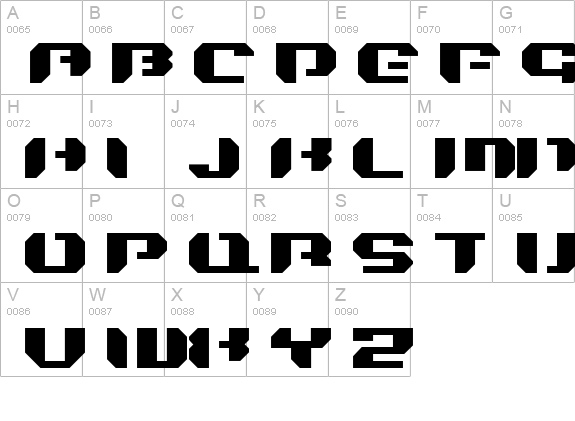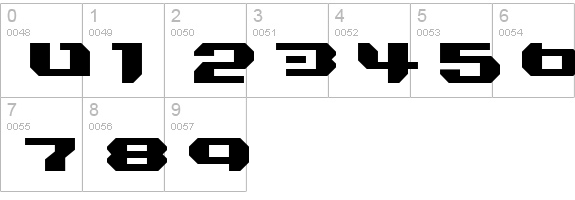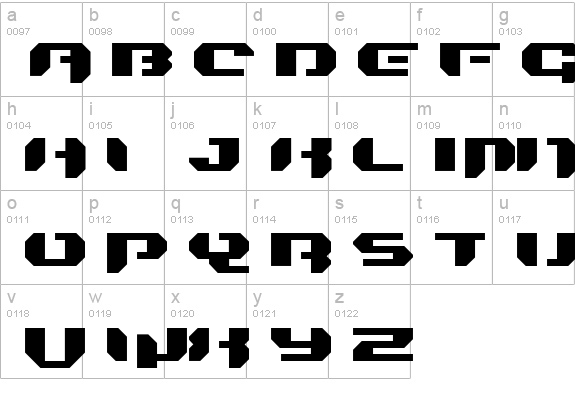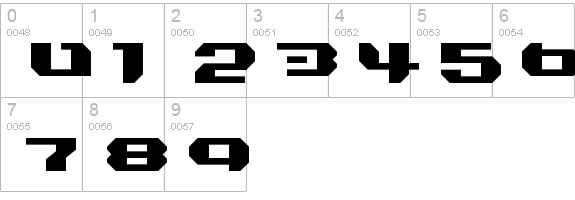
Bionic Kid Simple Font Details
Bionic Kid Simple font is a modern and sleek typeface that exudes a futuristic and robotic vibe. Its clean lines and sharp edges make it perfect for designs that require a high-tech look. This font is versatile and can be used for various projects such as logos, posters, websites, and more. The best part about Bionic Kid Simple font is that it is completely free to download. You can easily access this font at FontsMarket.com and start using it in your creative projects right away. Don't miss out on this amazing opportunity to enhance your designs with the unique style of Bionic Kid Simple font. Download it now and let your creativity soar!